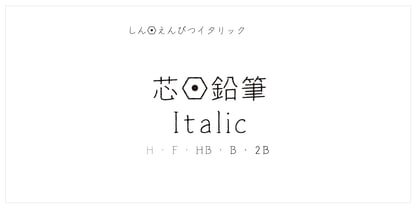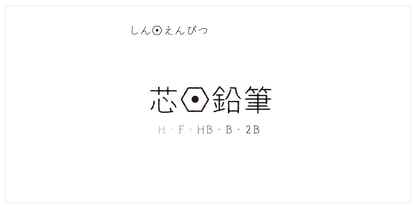
Lead Pencil StdN F
This typeface evokes nostalgia for pencils, which are now completely out of use. The orthodox, easy-to-read character form inherited from Kinutaishin, with blurred strokes, creates warmth and friendliness. The characters are spaciously placed and the space between them is wide, conveying a sense of comfort to the reader from the text.